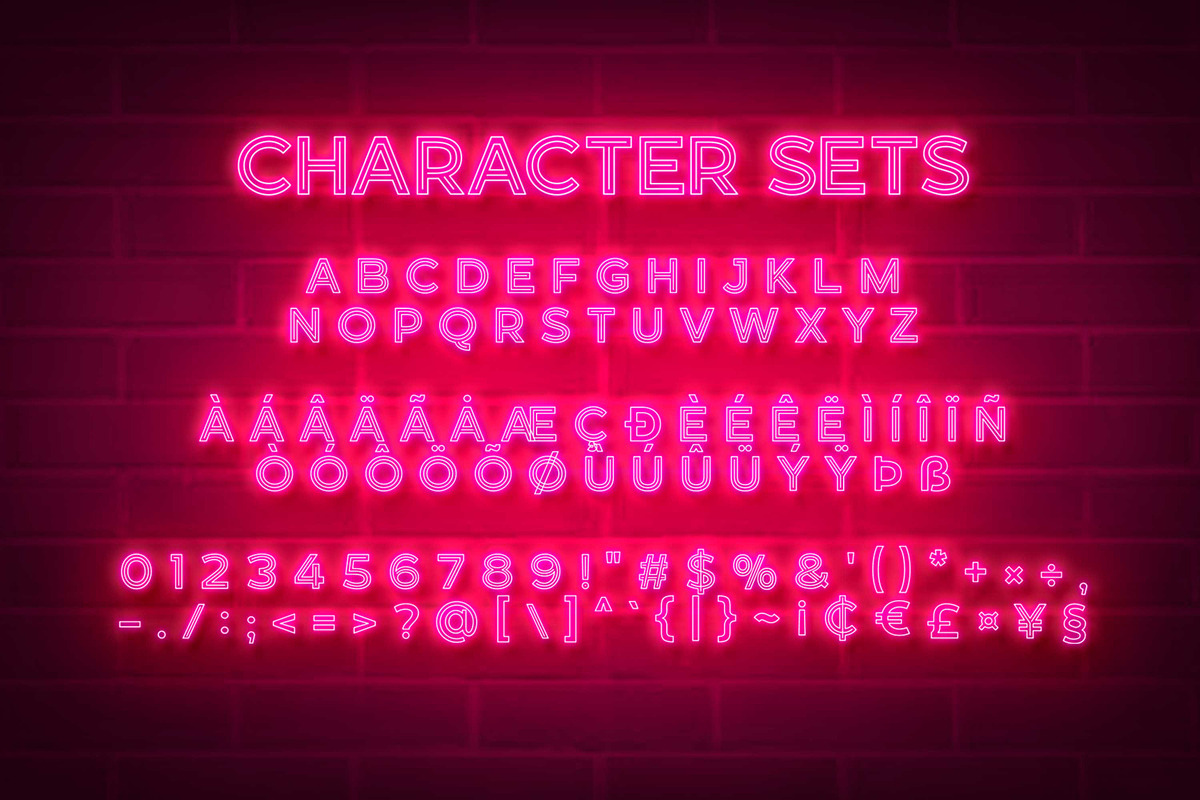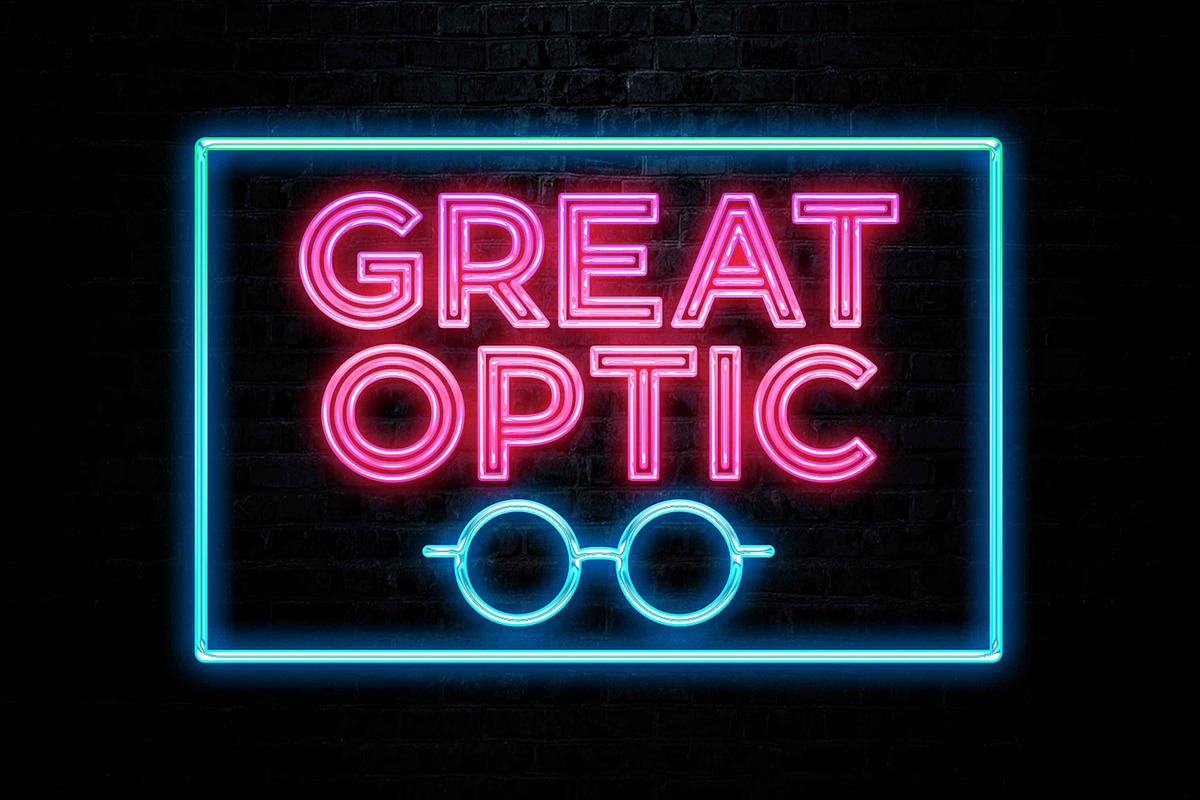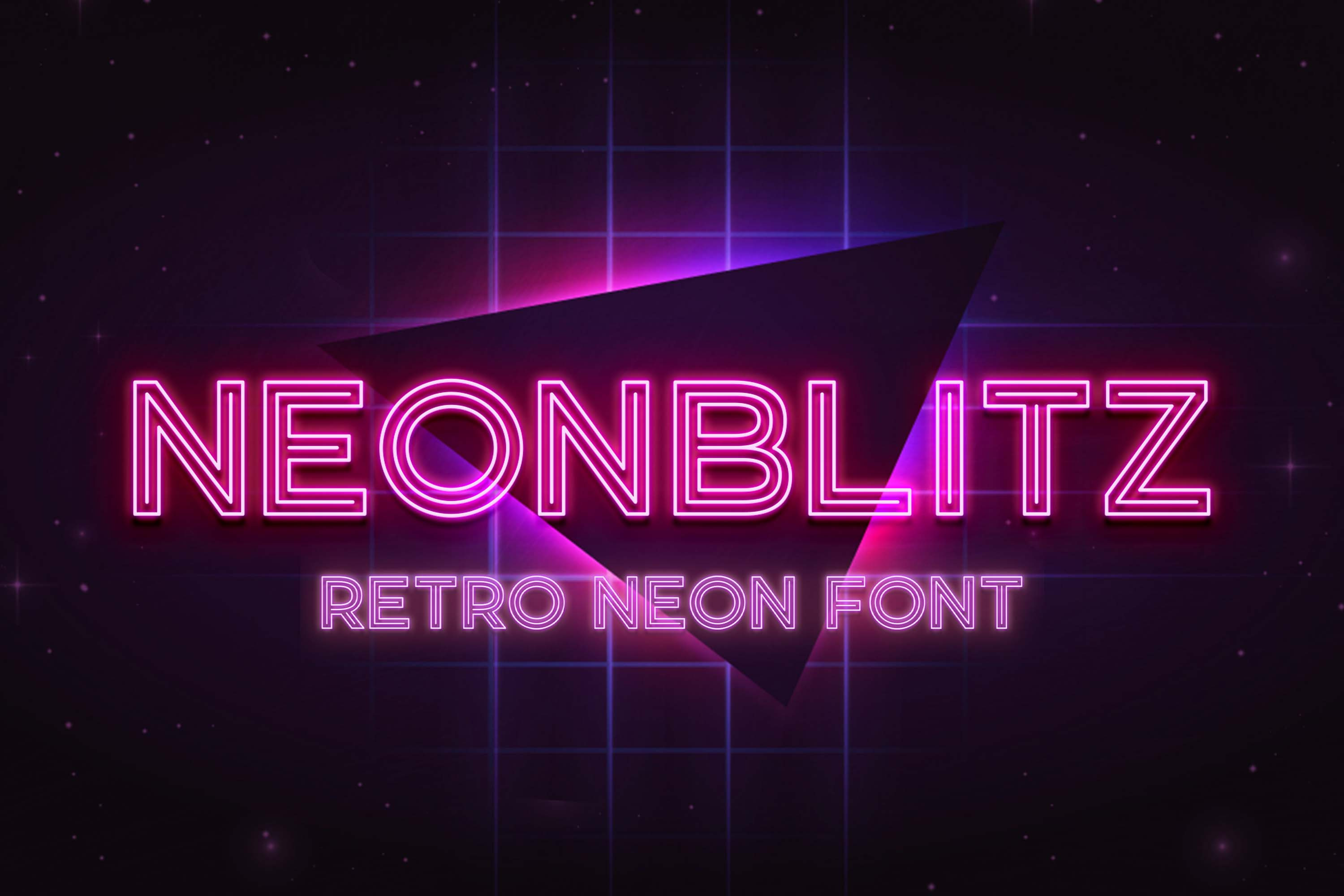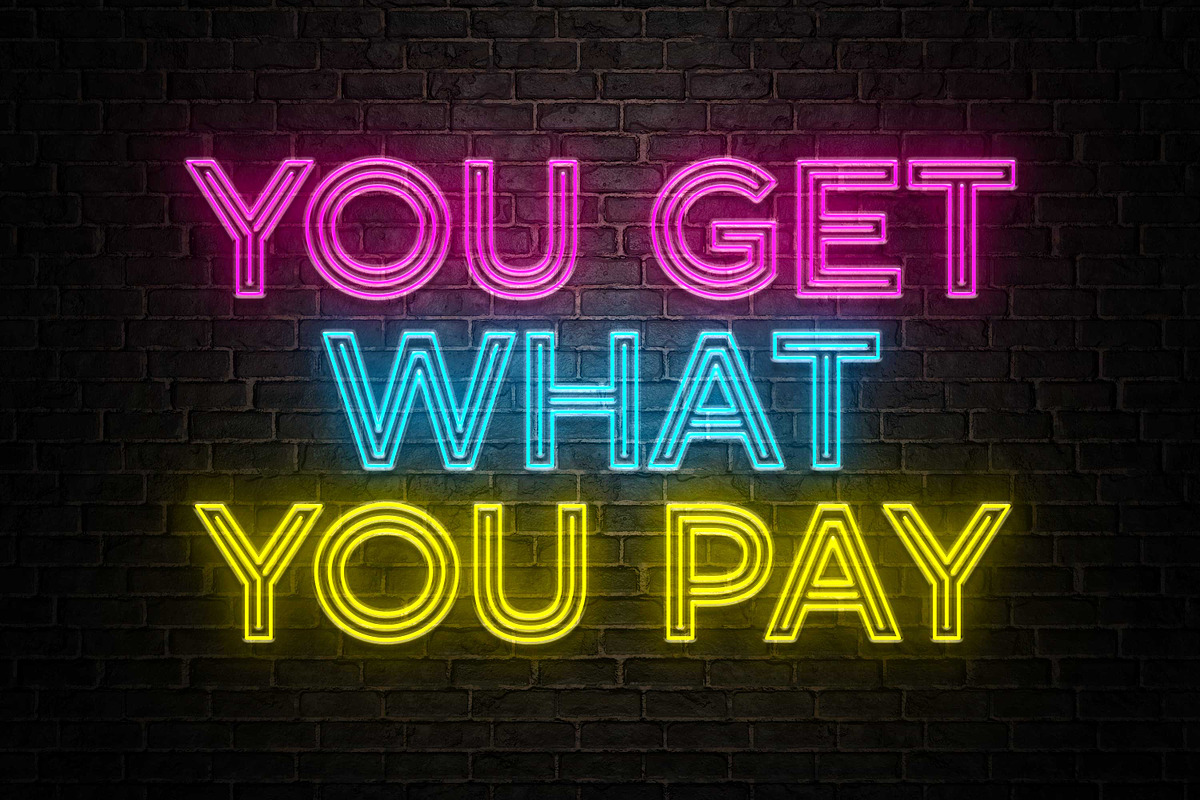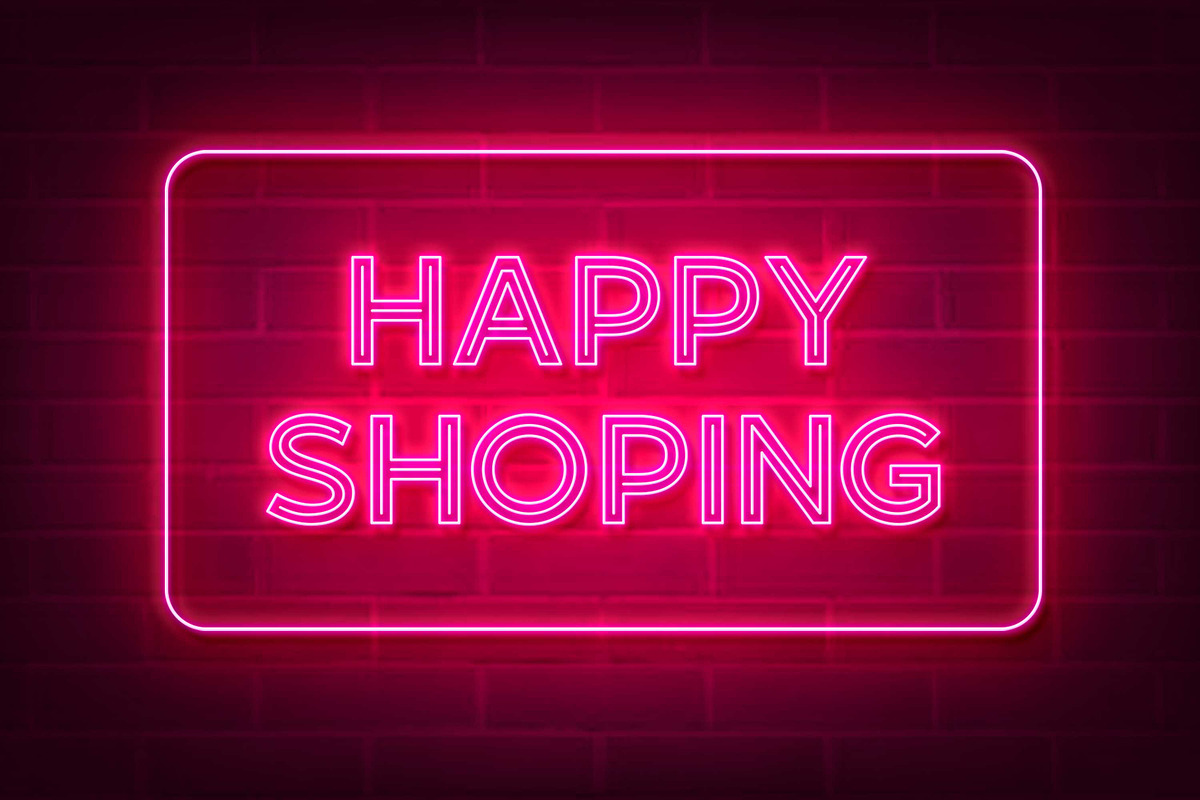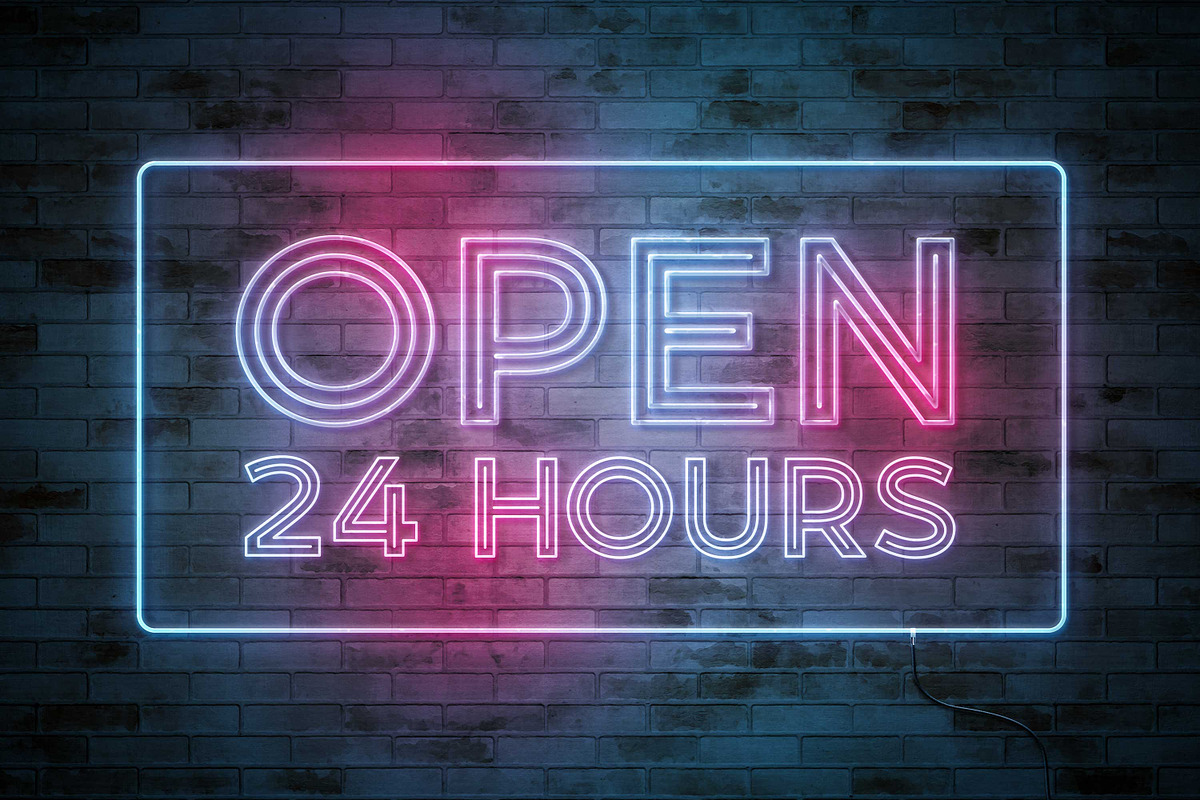
NEONBLITZ - Retro Neon Font
Introducing Neon Font called Neonblitz a unique fonts with Retro Style can make your logotype become more interesting. inspired by real world neon light signs, it features minimal letter forms with smooth rounded corners and, true to real neon tubes, strictly uses lines with open start and end points. This font is perfect for adding your own glowing light effects or can be used to actually design real world neon signs.
Neonblitz fonts is perfect for your project and allows you to create designs, headlines, posters, logos, badges, t-shirts and many more that are beautiful. It is also best used for posts, logos, posters, certificates, labels and more.
- Multilingual Accent